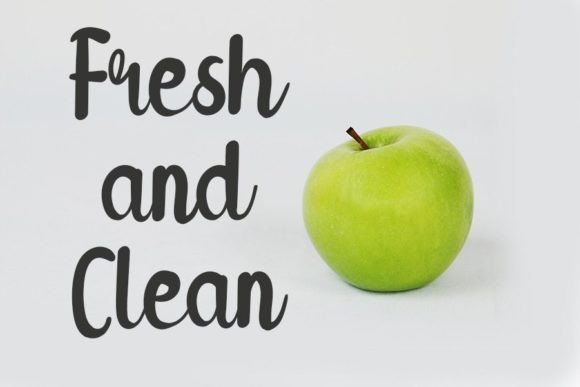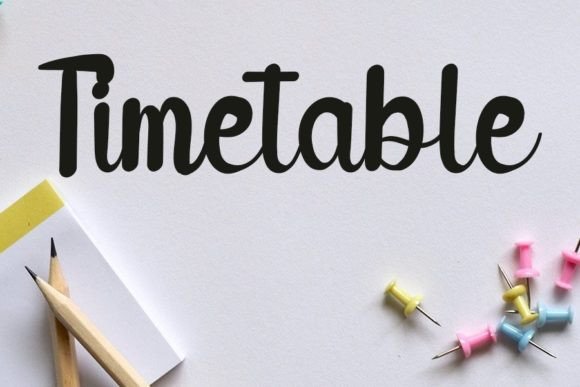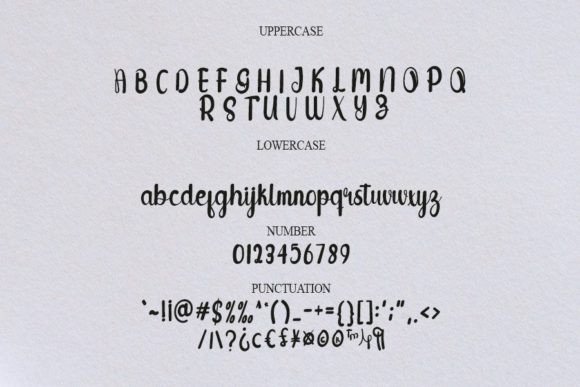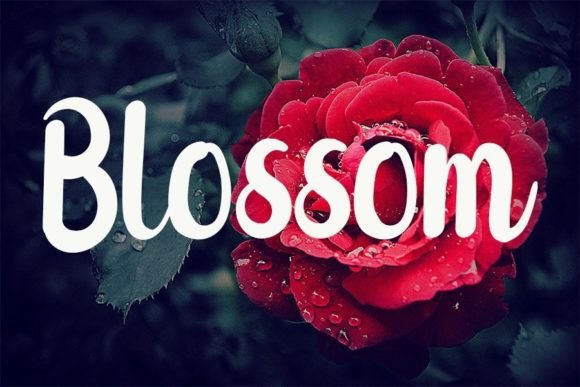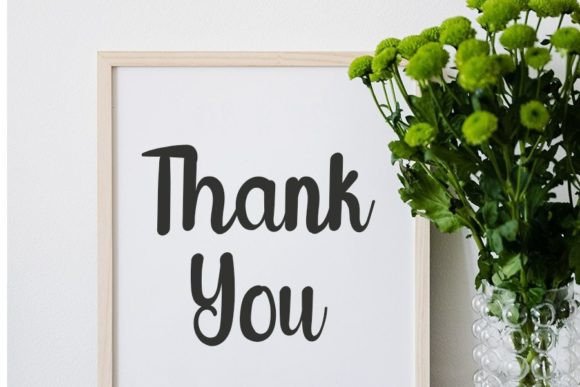
About Hey Bubun Font
“Hey Bubun” is a charming handwritten font that has been thoughtfully crafted to become a beloved favorite among designers. It seamlessly merges classy calligraphic influences with a contemporary and fresh feel, making it incredibly versatile and appealing for a wide range of creative projects. By incorporating “Hey Bubun” into your designs, you can elevate them and add a touch of charm and creativity, making your projects truly outstanding.
The font’s friendly and approachable nature creates a warm and inviting atmosphere, making it suitable for various applications. Whether you’re working on branding, invitations, social media posts, greeting cards, quotes, or any other project, “Hey Bubun” adds a unique flair. Its carefully designed letterforms strike a balance between elegance and modernity, making it appealing to a diverse audience.
Incorporating “Hey Bubun” into your creative projects allows you to infuse them with a unique personality. Its handwritten style brings authenticity and character to your designs, setting them apart from ordinary fonts. The font’s versatility enables it to adapt seamlessly to different design themes and concepts, making it a top choice for designers seeking a font that effortlessly combines sophistication with a friendly and contemporary appeal.
Embrace the friendly and classy charm of “Hey Bubun” and witness how it transforms your creative projects. Its ability to maintain a balance between tradition and modernity empowers you to create exceptional designs that leave a lasting impression. With “Hey Bubun,” your projects are destined to shine, captivating your audience with its unique and approachable handwritten aesthetic.